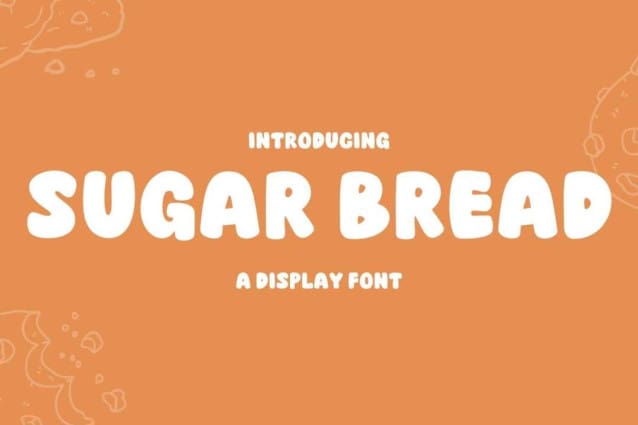
Sugar Bread Font
Sugar Bread Font, is a chunky, comic, and cartoon display font. With its neat and joyful personality, this font will enhance any project you wish to create!